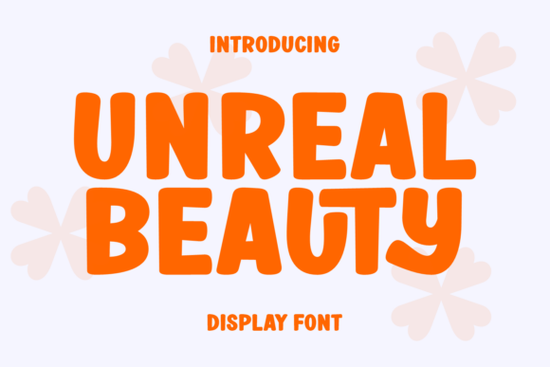
When you need a display font that’s bold without shouting and retro without feeling dated, the Unreal Beauty Font fits right in. It balances strong, playful letterforms with smooth, almost velvety edges that make it feel both loud and kind. Crafters, small business owners, and print-on-demand sellers often look for exactly this mix something that catches the eye on a mug or a t-shirt but still looks polished on a website header. Unreal Beauty delivers that with a distinctive retro-esque vivacity that doesn’t sacrifice readability.
What makes Unreal Beauty different from other display fonts?
Many display fonts lean too heavily into extremes. Some feel aggressive, others too soft. Unreal Beauty sits in a comfortable middle ground. Its shapes are engagingly robust, yet the contours carry a smooth finish. That contrast gives it a warm, inviting charm even when used at large sizes. The letterforms have a subtle bounce that feels hand-drawn but stays consistent enough for branding projects. If you’ve browsed the full Unreal Beauty font family, you’ll notice how well the uppercase and lowercase work together. The lowercase “g” has a lovely open loop, and the “y” descender sports a gentle curve that adds personality without distraction.
Where can you use Unreal Beauty font?
This typeface shines in places where you need a quick emotional punch. Think about:
- Craft projects – Vinyl decals, scrapbook titles, and handmade cards benefit from the bold but friendly shapes.
- Print-on-demand products – T-shirts, hoodies, and tote bags look great with retro-inspired quotes. Unreal Beauty prints cleanly on both light and dark substrates.
- Social media graphics – The font’s strong presence helps headlines stand out in busy feeds.
- Small business branding – Cafes, bakeries, and boutiques can use it for logos, signage, and packaging that feels approachable.
- Merchandise design – Mugs, stickers, and enamel pins often pair well with its rounded stroke endings.
If you work with a Cricut or Silhouette machine, the clean outlines make weeding simple. Sublimation printers also love fonts that hold detail without bleeding Unreal Beauty’s letter spacing handles that well. Check out how designers are using Unreal Beauty on Behance for real-world inspiration.
How does Unreal Beauty pair with other fonts?
Pairing a display font with a simpler companion keeps your layout from feeling chaotic. Unreal Beauty’s retro character works nicely alongside a crisp sans-serif like a geometric grotesk or a clean monoline script. For instance, you could set a bold headline in Unreal Beauty and use a light sans for body text below. The contrast emphasizes the headline without competition. If you prefer a more textured look, Lerry is a great option to explore. Lerry’s slightly irregular edges can add an extra layer of vintage charm when used in subheadings alongside Unreal Beauty.
For logos, try mixing Unreal Beauty’s uppercase with an elegant serif. The mix of playful and refined often gives a boutique feel that small business owners adore. Always test pairings by looking at how lettershapes sit next to each other pay attention to x-height balance and spacing.
Is Unreal Beauty good for print-on-demand designs?
When you’re building a design library for your shop, look for fonts that work across multiple niches. Unreal Beauty moves easily from funny quote tees to heartfelt gift items. The retro shape also aligns with current trends toward Y2K and 90s-inspired aesthetics, which means your products stay relevant longer.
What are some similar fonts to Unreal Beauty?
If you enjoy Unreal Beauty’s energy, you might also appreciate these display fonts. Each brings its own twist to the retro table.
- Tropic Sundae – A fun, bubbly choice that feels like a summer road trip. Its playful curves work well on children’s apparel and beach-themed products.
- Dustline Block – This one has a rugged, textured edge. The Dustline Block family suits rustic signage and outdoor adventure brands.
- Sweater – A cozy, slightly condensed font that mimics embroidery. Sweater’s soft, rounded letters feel perfect for home decor and craft labels.
All these fonts share a retro warmth, so you can rotate them in your shop without losing your signature style. Each brings unique texture that could complement or contrast with Unreal Beauty.
What should you check before using a display font in your projects?
Before you commit to a typeface like Unreal Beauty, run through this quick checklist. It saves time and money, especially if you sell physical products.
- Commercial license? Confirm the font allows for physical product sales or client work. Unreal Beauty includes that.
- Glyph coverage? Make sure all letters, numbers, and punctuation you need are present. Look for accented characters if you serve international customers.
- Print test? Print a sample on the material you plan to use some inks behave differently on cotton versus polyester.
- Pairing test? Set a sample headline with a secondary font and check balance at different sizes.
- Readability? Enlarge the font and view it from a distance. A display font should grab attention, not confuse.